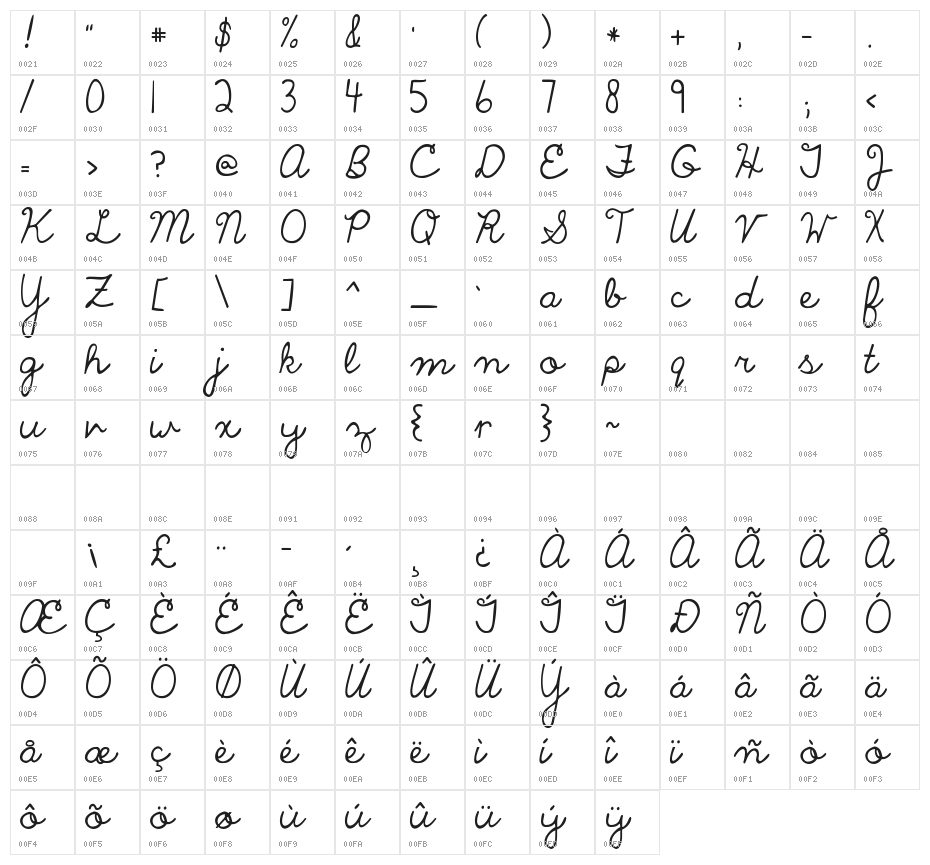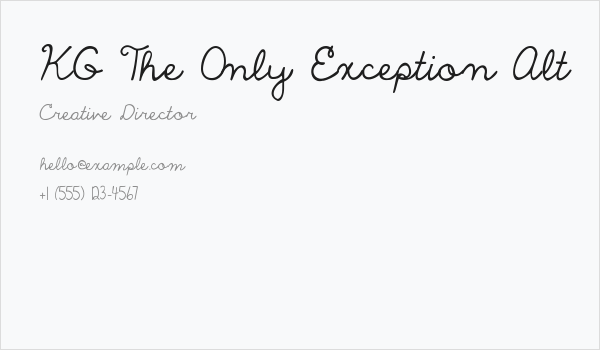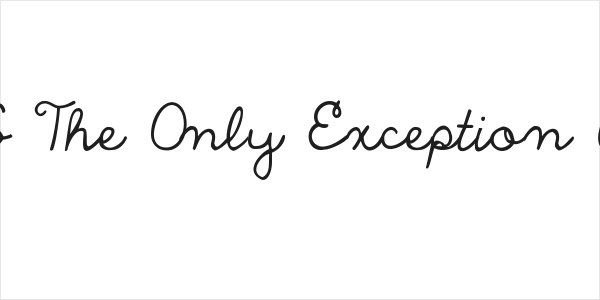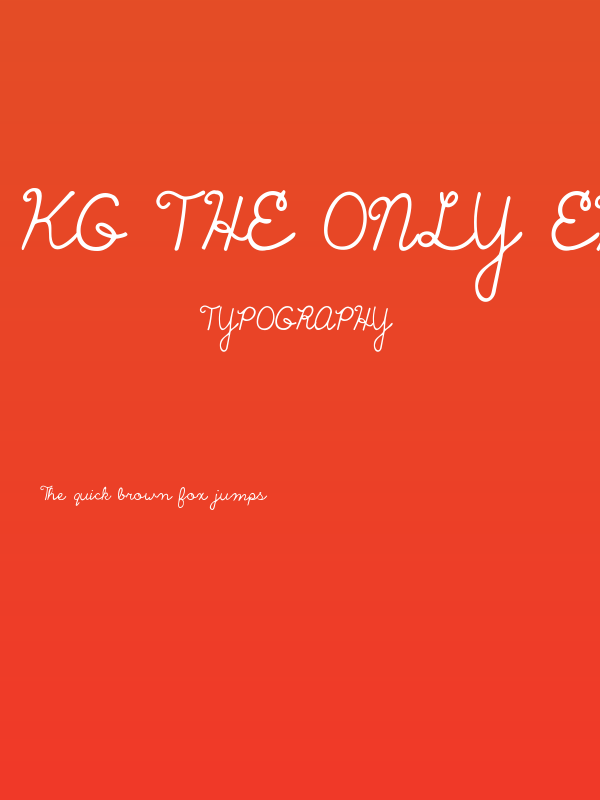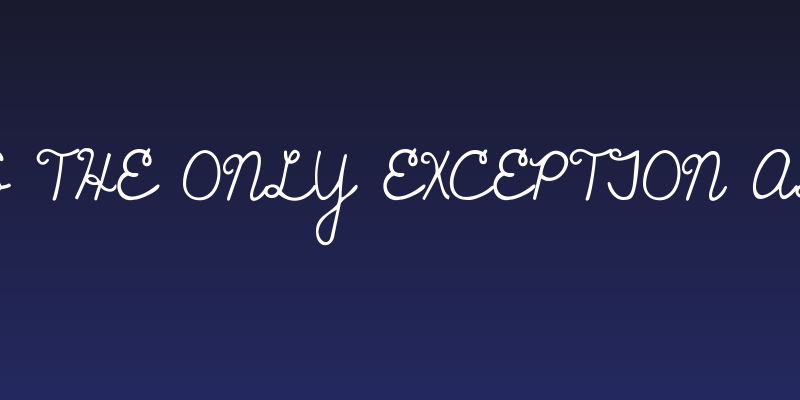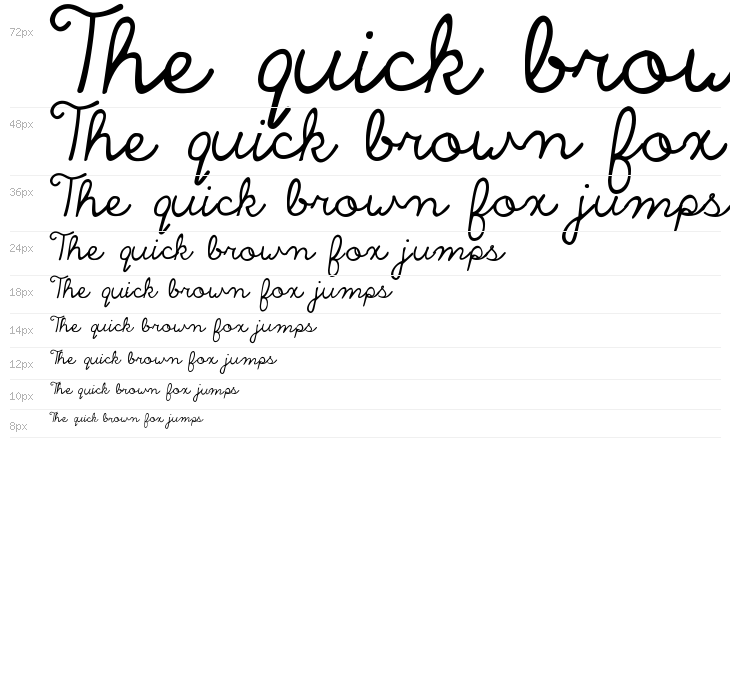
KG The Only Exception Alt Font
KG The Only Exception Alt Description
This font features a playful and whimsical script style, characterized by its fluid and connected letterforms. The uppercase letters exhibit a charming looped design, while the lowercase letters maintain a consistent flow, enhancing readability. The numerals are bold and slightly rounded, complementing the overall aesthetic. Special characters are creatively integrated, adding to the font's unique personality. This style exudes a casual yet elegant vibe, making it suitable for a variety of creative applications.
| Proposed Projects | Ideal for greeting cards, invitations, branding projects, and playful editorial designs. |